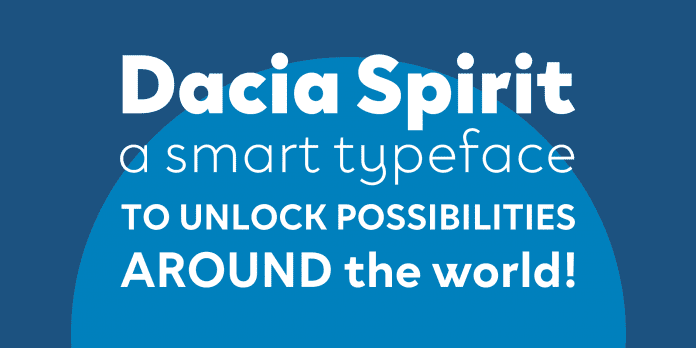
Dacia Spirit Font is perfect for a wide range of design projects including historical branding, cultural logos, ancient-inspired posters, heritage packaging, museum exhibitions, educational materials, traditional crafts, and authentic storytelling designs. Its timeless character makes it an exceptional choice for projects that celebrate history, culture, and enduring traditions.
What makes Dacia Spirit Font exciting is its unique ability to bridge ancient heritage with contemporary design sensibilities. The font features carefully crafted letterforms that evoke historical authenticity while maintaining modern readability and functionality. Its distinctive character transports viewers through time, creating an emotional connection that adds depth and meaning to your creative projects.
Dacia Spirit Font comes in multiple font families including Regular, Bold, Light, Distressed, Aged, and various decorative variations. These comprehensive options allow designers to create layered typographic compositions that enhance the historical atmosphere and cultural richness of their work.
For designers seeking to infuse their projects with historical gravitas and cultural authenticity, Dacia Spirit Font Free Download offers outstanding versatility and artistic quality. The font's distinctive aesthetic works beautifully for both large display applications and body text, making it perfect for creating complete brand identities, editorial designs, and immersive visual experiences that honor tradition.